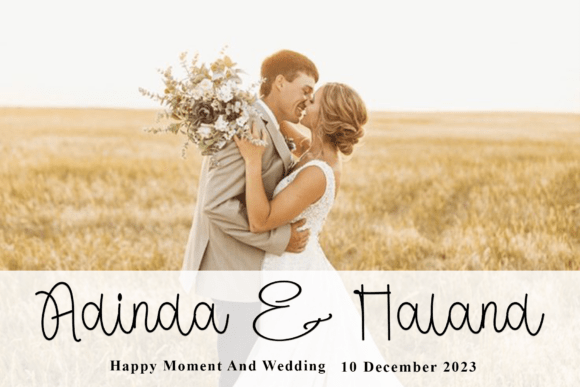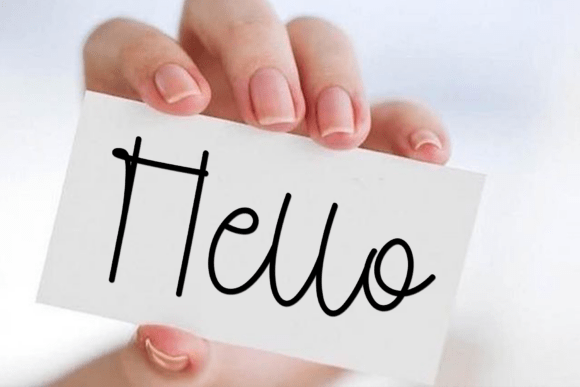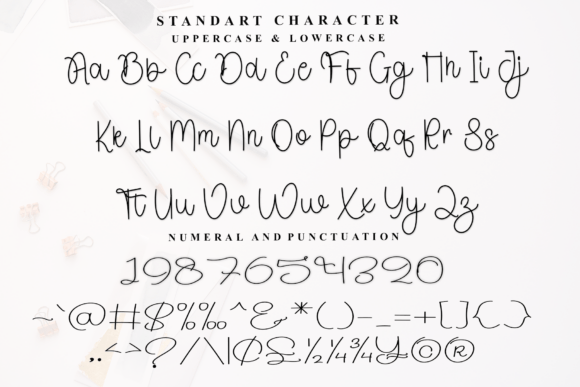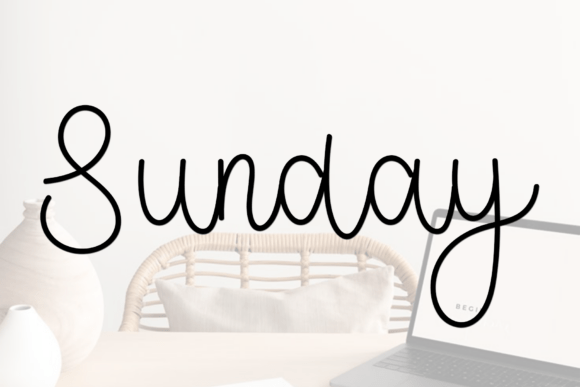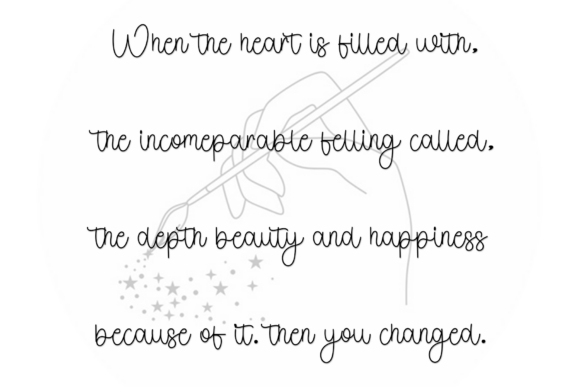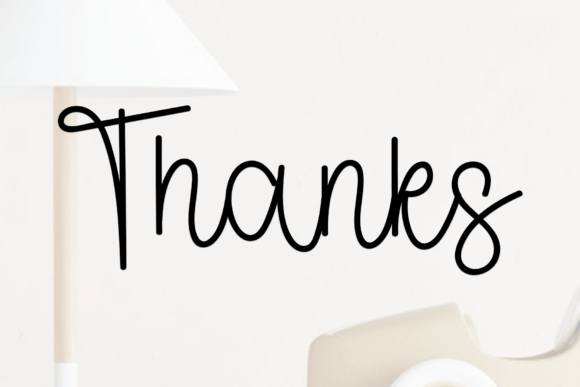
Daddy Halloween Font: Elevate Your Designs with a Unique and Versatile Typeface
Are you a designer or crafter looking for a font that will add a touch of personality to your projects? Look no further than the Daddy Halloween Font. This beautiful and eye-catching typeface is designed with a soft, unique touch that sets it apart from other fonts. Its distinctive strokes give it a special character, making it meaningful and versatile for future use.
A Font that Stands Out
The Daddy Halloween Font is perfect for designers and crafters who want to add a personal touch to their work. Its unique design makes it ideal for a wide range of projects, from crafts and DIY projects to digital designs and artistic creations. With various characters, this font is sure to enhance your designs and make them appealing to many audiences across different artistic and creative fields.
Key Features of Daddy Halloween Font
• Unique Design: The Daddy Halloween Font has a distinctive and eye-catching design that sets it apart from other fonts.
• Soft and Elegant: The font has a soft and elegant touch, making it perfect for designs that require a personal and creative approach.
• Versatile: The font is versatile and can be used for a wide range of projects, from crafts and DIY projects to digital designs and artistic creations.
• Natural Font Style: The font has a natural font style that makes it ideal for designs that require a personal and creative approach.
Use Daddy Halloween Font for Your Design Projects
The Daddy Halloween Font is perfect for a wide range of design projects, including:
• Crafts and DIY Projects: Use the font to add a personal touch to your crafts and DIY projects, such as handmade cards, invitations, and decorations.
• Digital Designs: Use the font to create stunning digital designs, such as social media graphics, blog posts, and website headers.
• Artistic Creations: Use the font to add a creative touch to your artistic creations, such as paintings, drawings, and sculptures.
Benefits of Using Daddy Halloween Font
Using the Daddy Halloween Font for your design projects offers several benefits, including:
• Unique and Eye-Catching Designs: The font helps you create unique and eye-catching designs that stand out from the crowd.
• Personal Touch: The font adds a personal touch to your designs, making them more relatable and engaging.
• Versatility: The font is versatile and can be used for a wide range of projects, making it a valuable addition to your design toolkit.
In conclusion, the Daddy Halloween Font is a beautiful and eye-catching typeface that is perfect for designers and crafters looking to add a unique touch to their projects. Its distinctive strokes give it a special character, making it meaningful and versatile for future use. With various characters and compatibility with various applications, this natural font style is ideal for a wide range of products. Whether you’re working on crafts, DIY projects, digital designs, or artistic creations, the Daddy Halloween Font is sure to enhance your designs and make them appealing to many audiences across different artistic and creative fields.